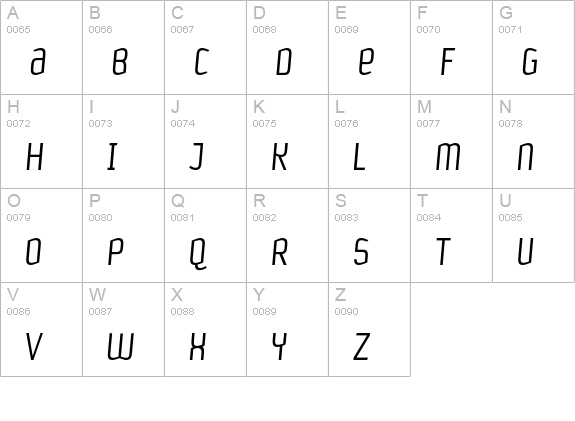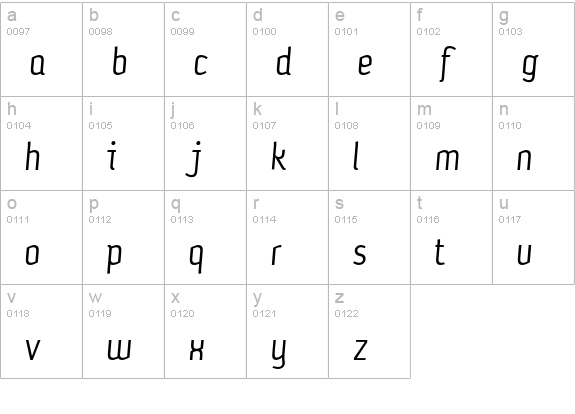
Introducing Petrol-LightItalic font, a sleek and elegant typeface that exudes a sense of modern sophistication. With its slender and graceful letterforms, this font effortlessly captures attention and adds a touch of refinement to any design project. Petrol-LightItalic font is a perfect choice for those seeking a balance between professionalism and creativity. Its unique italicized style adds a subtle flair, making it ideal for branding, logos, headlines, and more. Whether used in print or digital media, this font will make a lasting impression. But the best part? Petrol-LightItalic font is absolutely free! That's right, you can download this exquisite font at no cost from FontsMarket.com. We believe that great design should be accessible to all, and we are thrilled to offer this font as a gift to designers, creatives, and enthusiasts alike. Don't miss out on this fantastic opportunity to enhance your projects with Petrol-LightItalic font. Its versatility and timeless appeal will elevate your designs to new heights. Download it today and experience the beauty and elegance of this remarkable typeface.